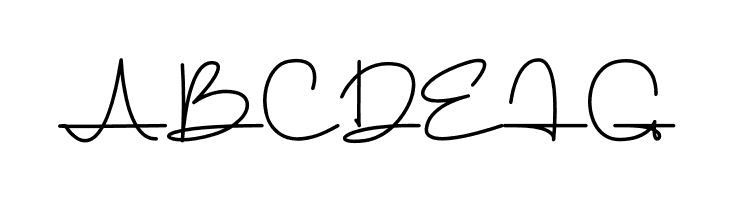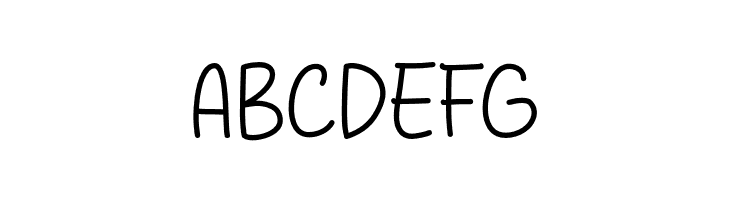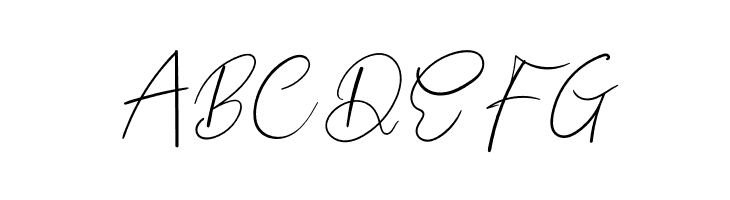
( Fonts by Jadatype )
Light, whimsical handwritten script with tall, airy letterforms.
( Fonts by MJType )
Casual rounded sans-serif with a handwritten style.
( Fonts by Eddy Goodboy )
A light, whimsical handwritten script with tall, narrow forms.